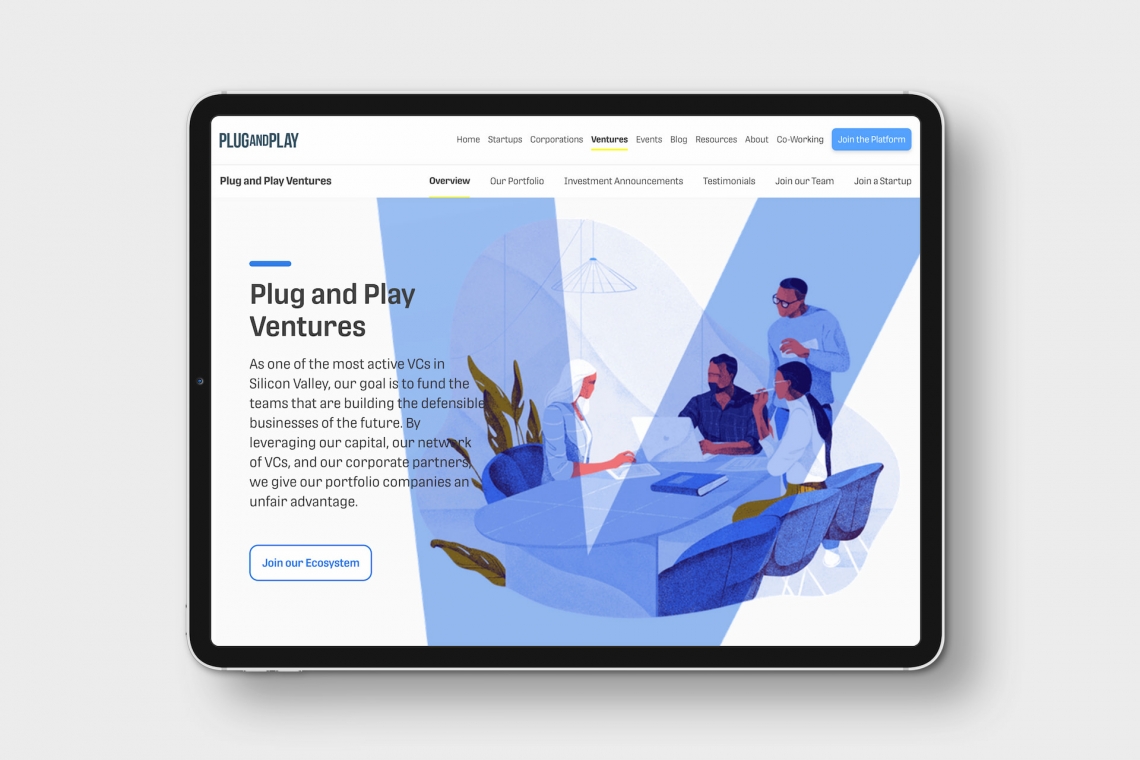
Protipo becomes a Plug and Play brand pillar
The tech catalyst company Plug and Play chose the tech-and-information-savvy Protipo family in their recent rebranding.
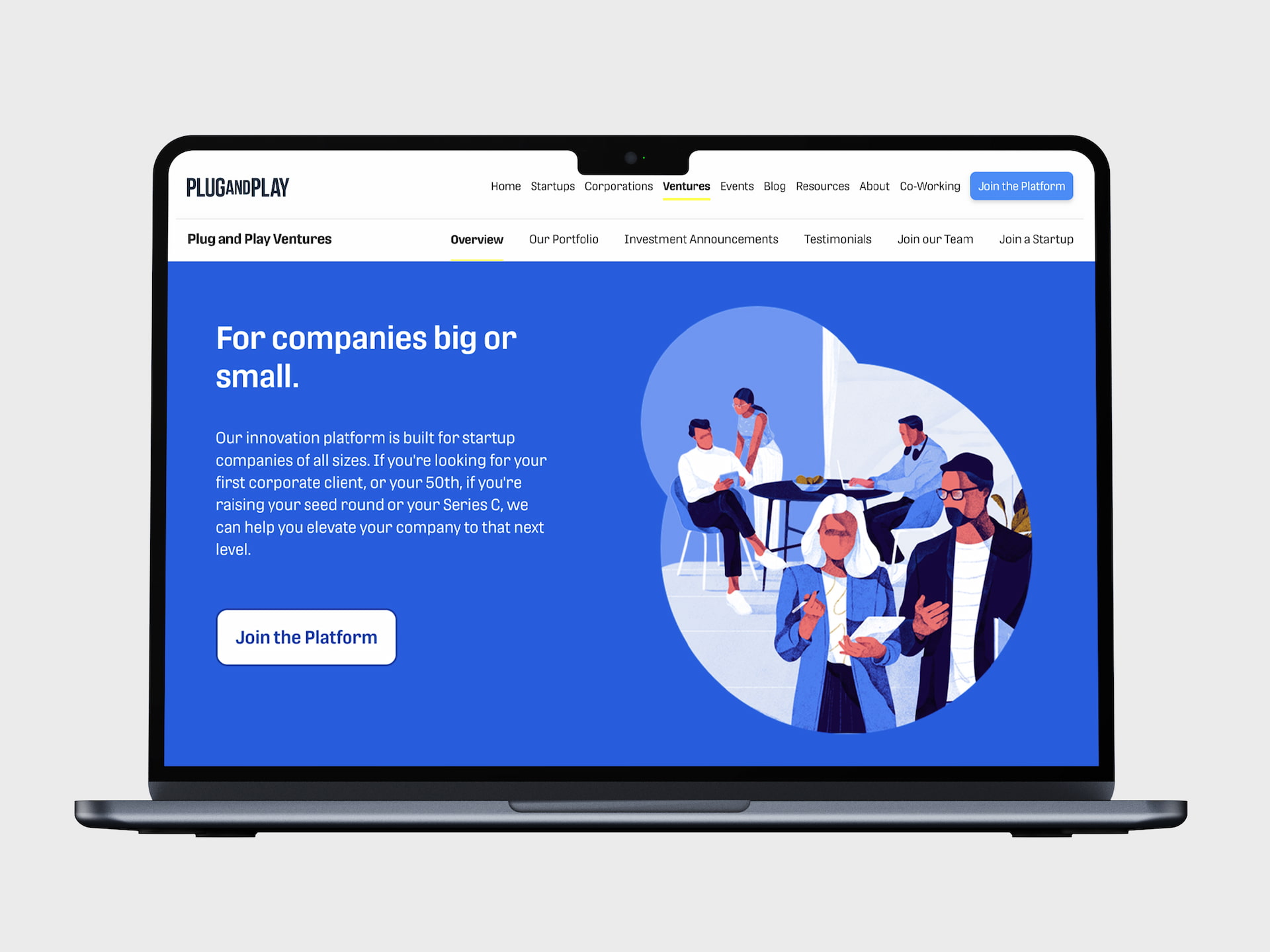
Plug and Play, a company devoted to assisting and connecting tech startups around the world, wanted to take their brand further by working on the consistency and coherence of their brand and typographic assets. One of the main concerns was to find a suitable alternative for their body text font, aiming to reinforce their brand identity, achieve consistency, enhance brand recognition and memorability, and future-proof their typographic requirements across various media in light of the company’s expected growth.
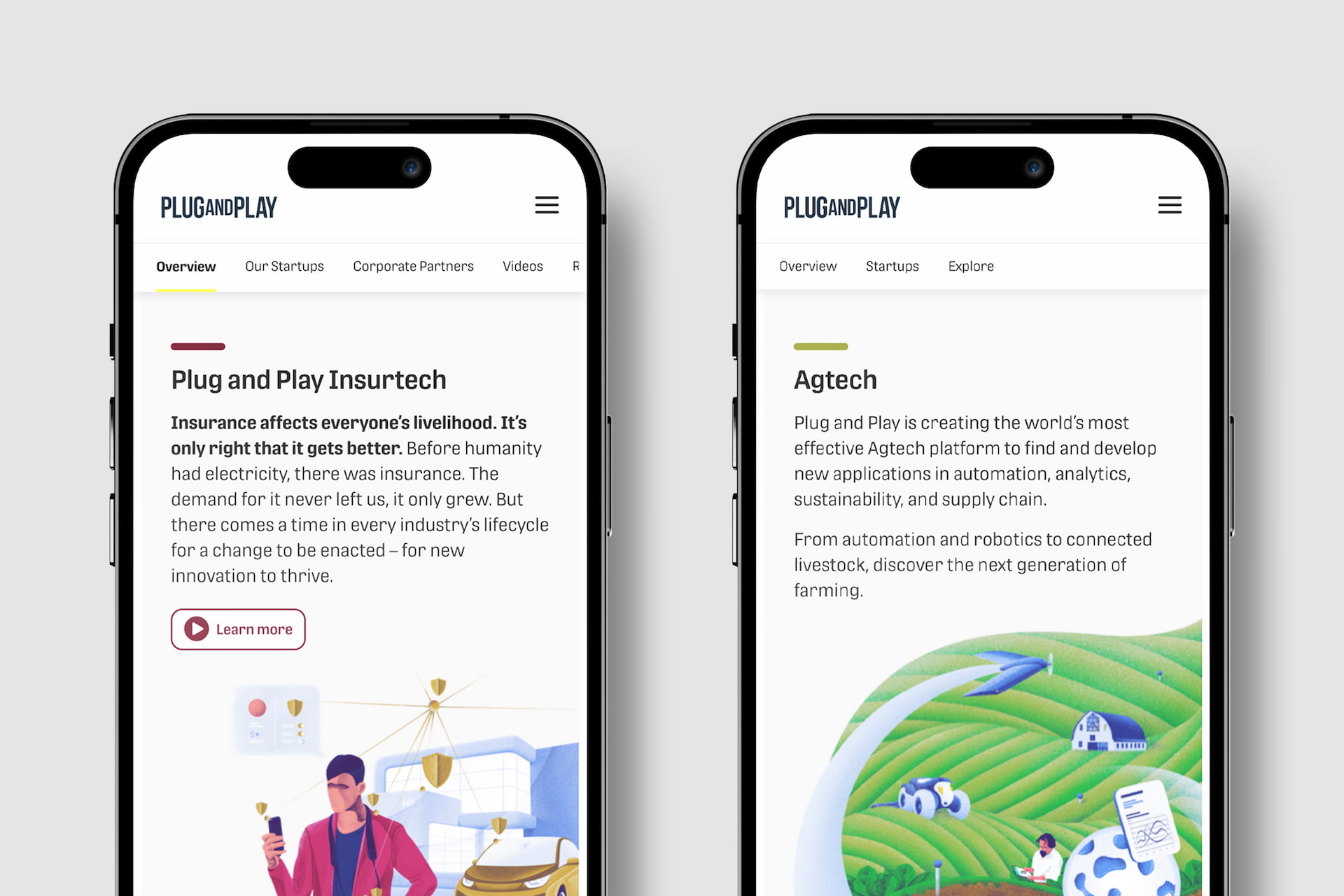
One of the major issues with branding in general is that when a particular typeface or style of type catches on, it tends to be the hot new thing. Seemingly overnight, everyone chooses the same one and all the companies risk becoming indistinguishable amidst the trend.
Whether branding strategy is approached as a container for the message or as a way to gain a market position, distinction wins the branding game. Looking like everyone else is like being another drop of water in the ocean rather than being the island oasis — the useful, the different, and the inspiring destination. As much as possible, brands should own their assets and their position both in their category and amidst the culture.
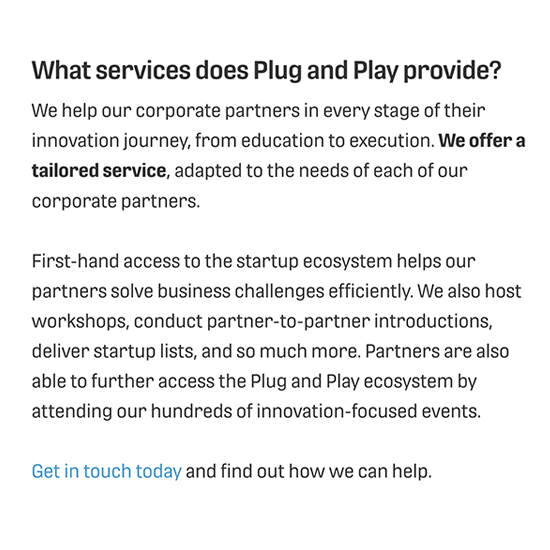
Plug and Play came to several important realisations about their previous type choice in their search to connect with their customers in a deeper and more authentic way: it was an all-too-common sans serif; it had no discernible personality; unlike their entire reason for existing, it was made almost a century ago rather than being made for the digital age; it failed in paragraph text; its character set was limited; and it said nothing significant about their identity, how they help clients, or who they believed they could be.
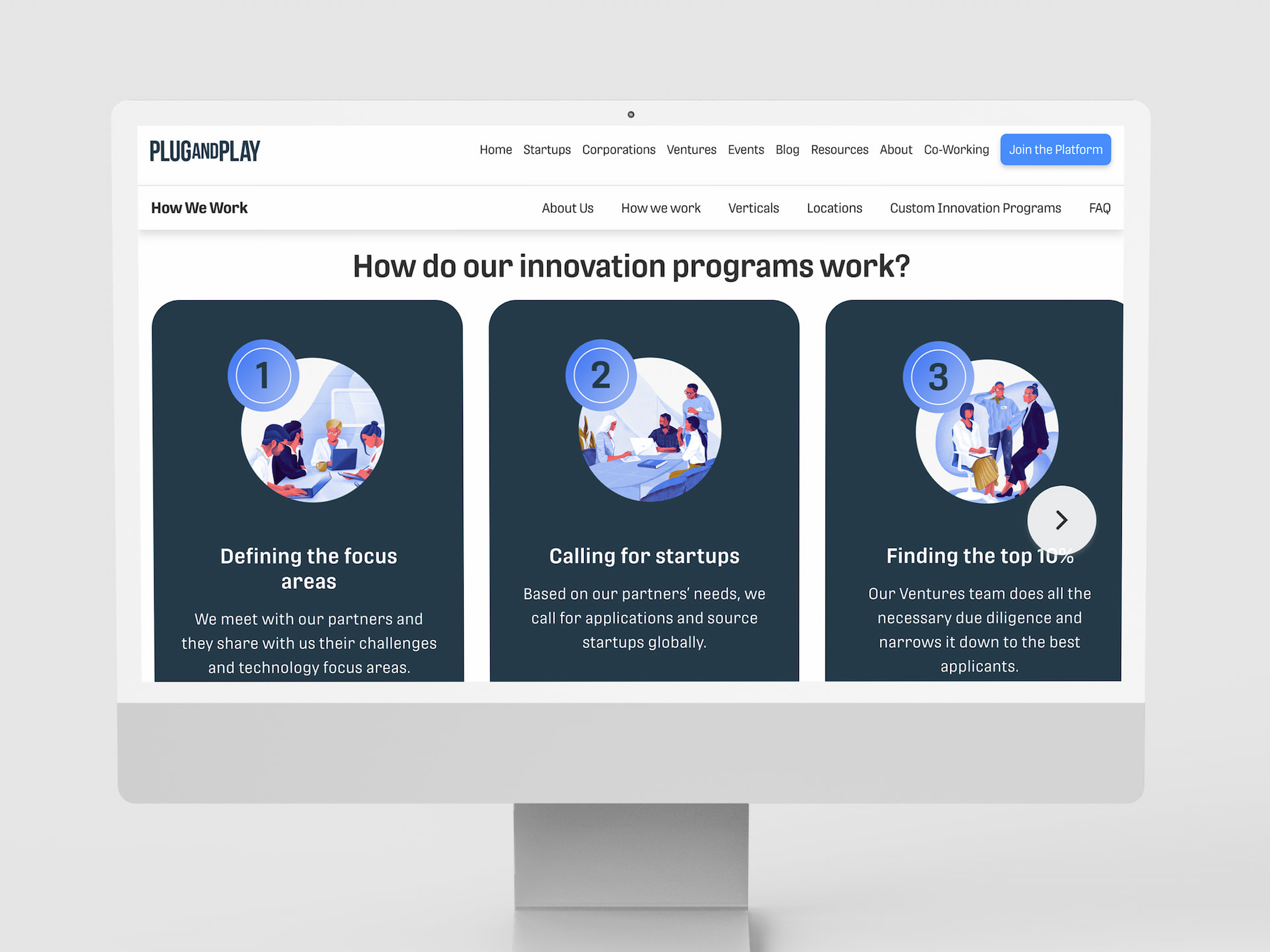
And, while they needed to solve these issues, Plug and Play did not want to get too far from what initially drew them to their prior font choice. Going in a completely new direction would only increase the amount of work across all internal and external print communications, internet presence, and digital representations.
Former Global Brand Manager and Creative Strategist Sara de la Mora, who was in charge of the typographic restyling and rebranding, explained, “Finding a typeface similar to their previous corporate font would facilitate a seamless transition, eliminating potential technical and logistical challenges. Opting for a vastly different font would have imposed a significant burden on the company, necessitating time-consuming updates to templates and recreating various documents and communication assets.”
Their brand evolution had to be simple, purposeful, and functional — sensible in every respect. All these challenges can fortunately be overcome, and it’s one of our joys to partner with our collaborators to make it happen.
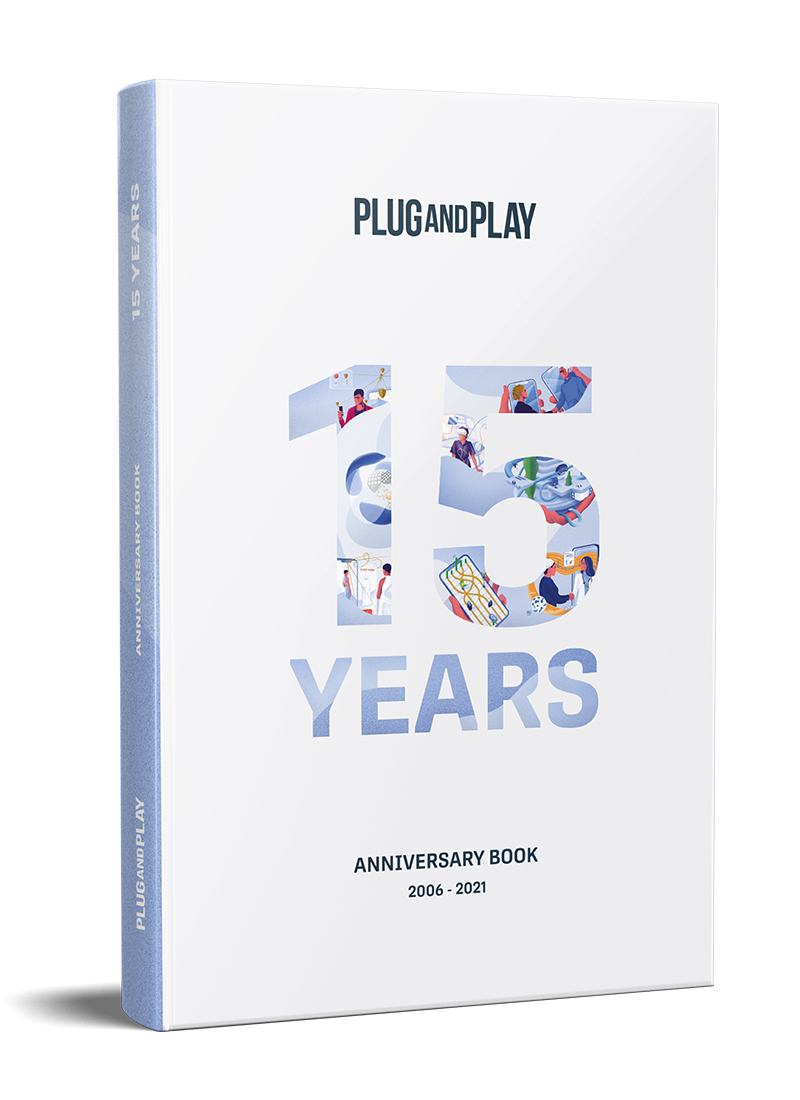
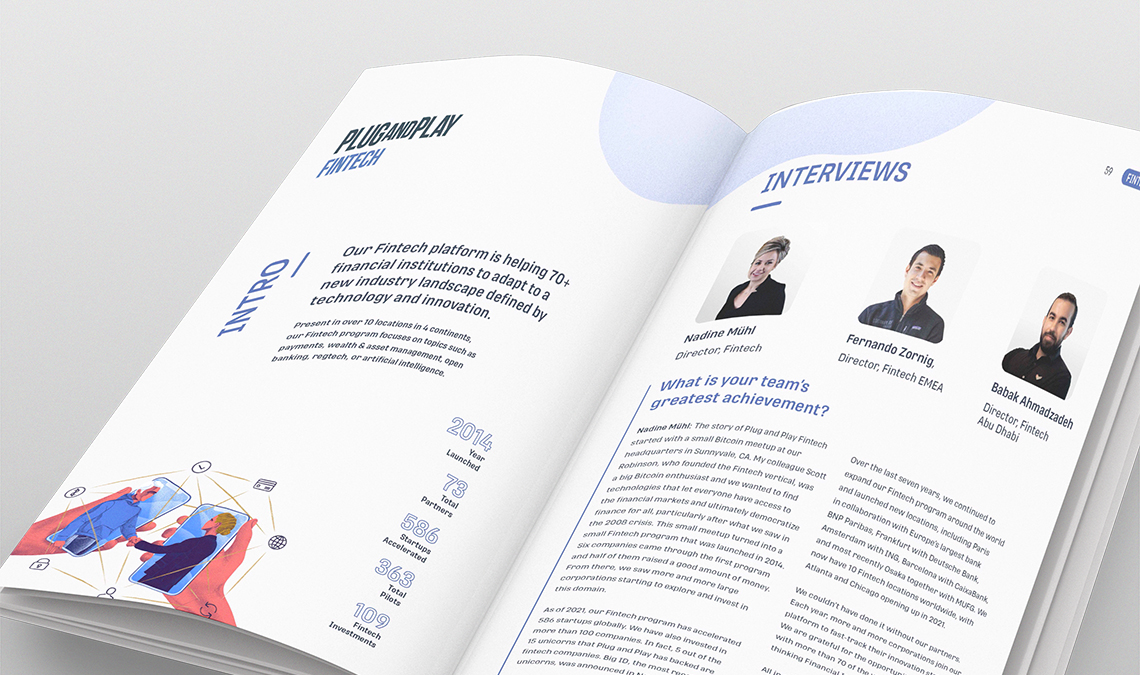
Plug and Play scheduled a series of meetings to assess options with TypeTogether CEO José Scaglione, and he partnered with them to think through their challenges holistically. After a thorough corporate evaluation and testing phase, they chose our Protipo type family not just to be an aspect of the brand, but to carry the entirety of the text and be the voice of the company.
De la Mora recalled, “After careful consideration, the typeface Protipo was selected because of the possibilities to work in digital and print environments, to perform in large and small sizes, and due to its similarity to the previous corporate font.”
Plug and Play’s mission and tone of voice is matched by how Protipo’s simple, impactful, and wide-ranging abilities become a brand pillar. It’s also a type family engineered to handle complex information in infographics and UI, helping those designers work smarter. To us, it looks like a perfect match.